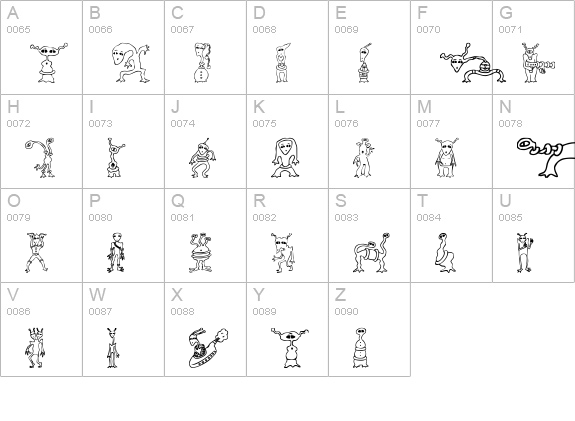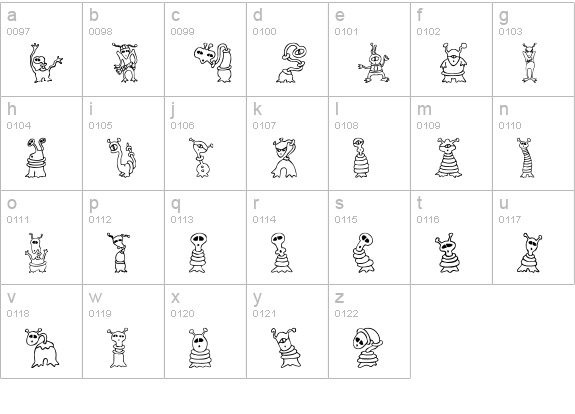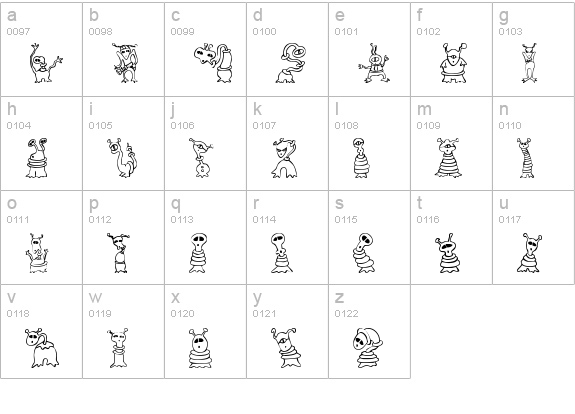
Alien Twits Font Details
Alien Twits font is a whimsical and playful typeface that is perfect for adding a touch of extraterrestrial charm to your designs. With its quirky and futuristic letterforms, this font is sure to make your text stand out in any project. Whether you're creating posters, invitations, or social media graphics, Alien Twits will add a unique and otherworldly flair to your work. The best part? Alien Twits font is available for free download at FontsMarket.com! Simply visit the website to grab this fun and creative font for your personal or commercial projects. Embrace the alien aesthetic and let your creativity soar with Alien Twits font today.